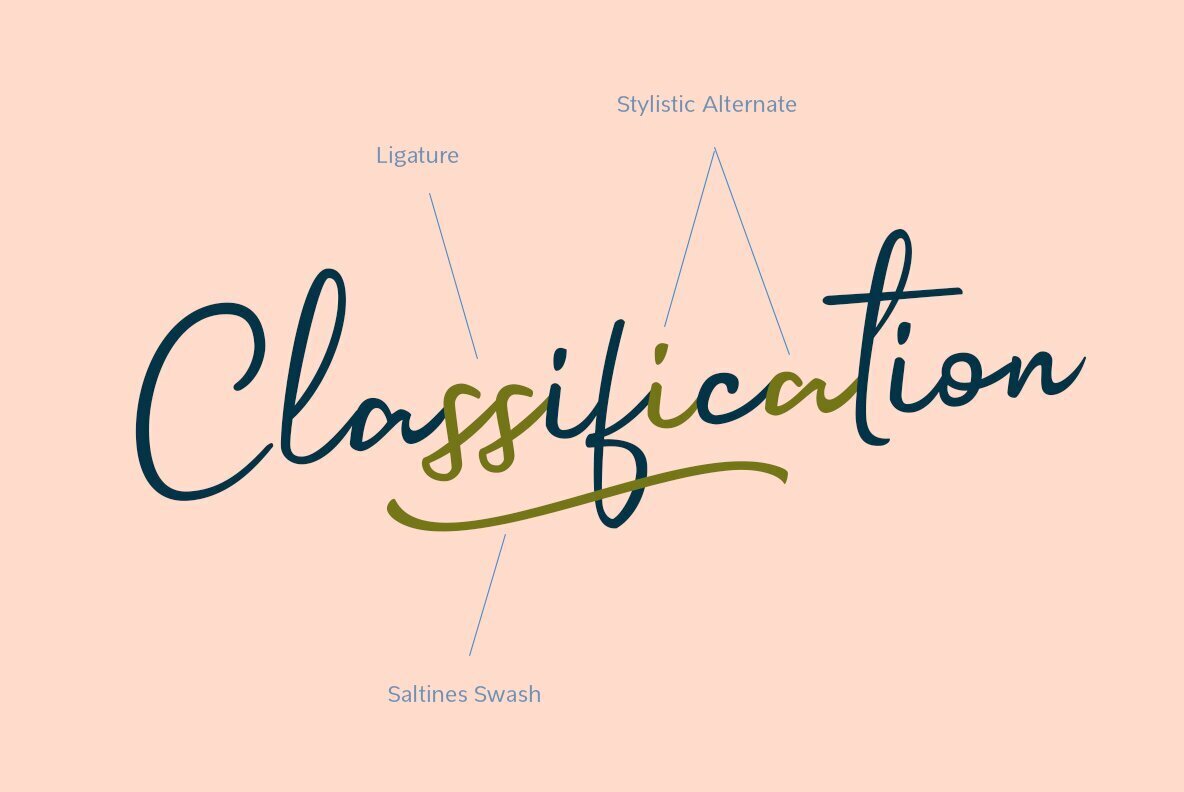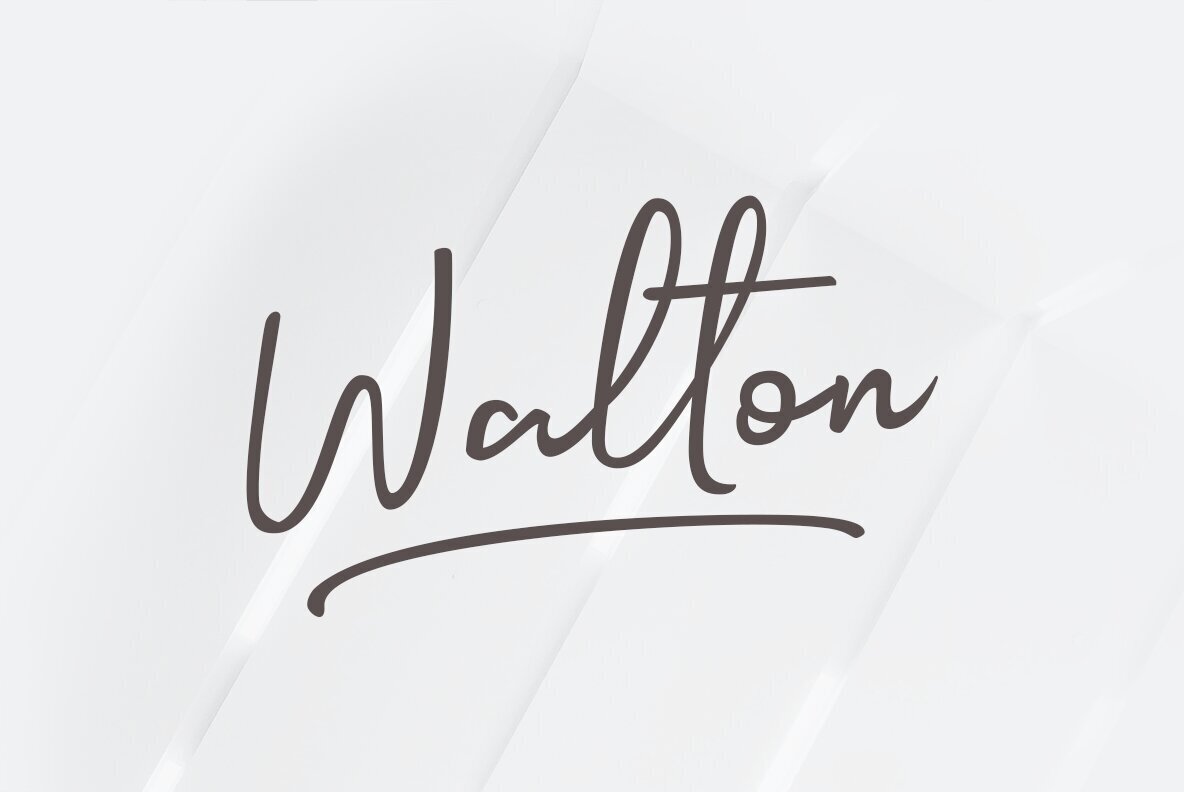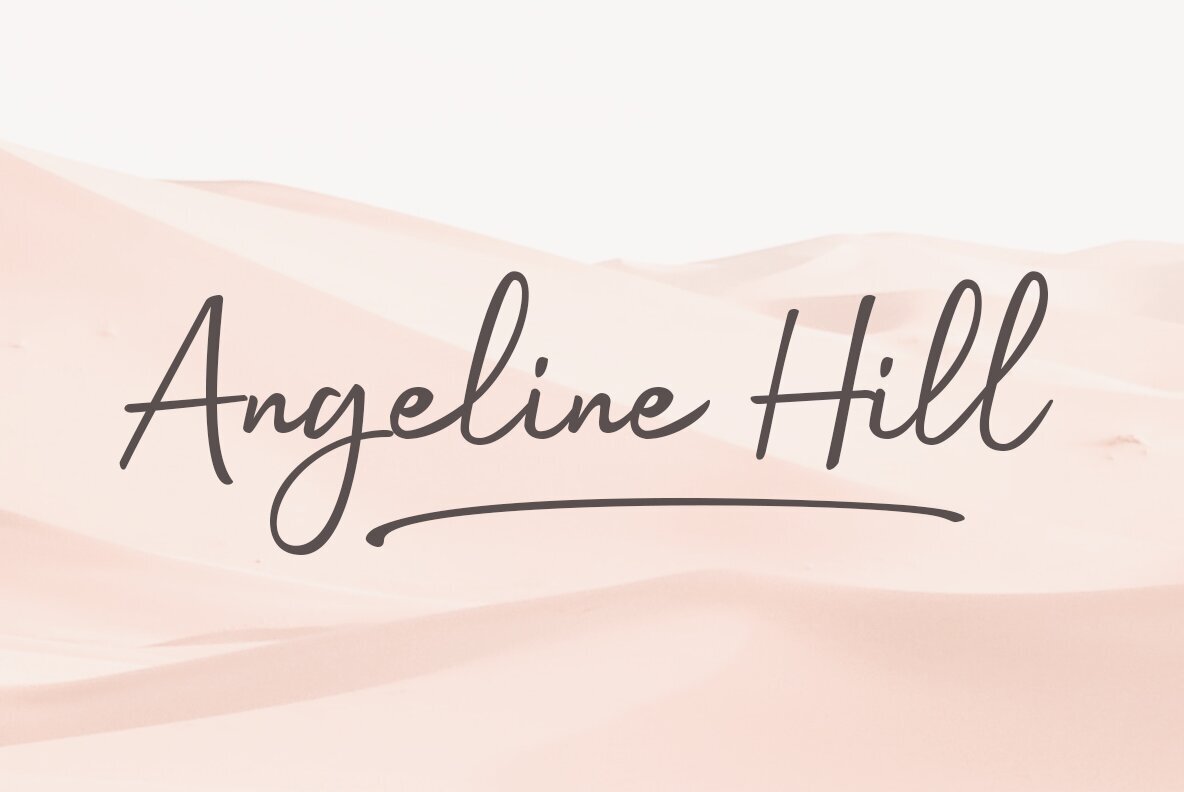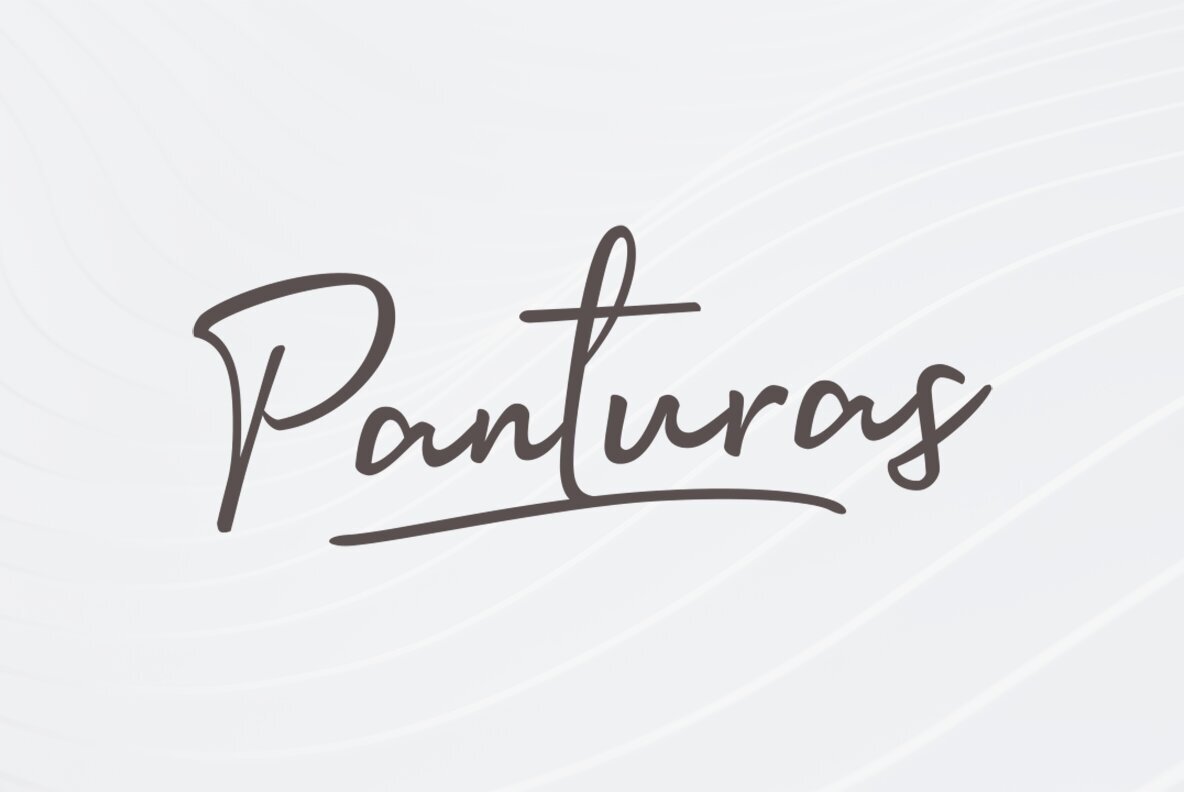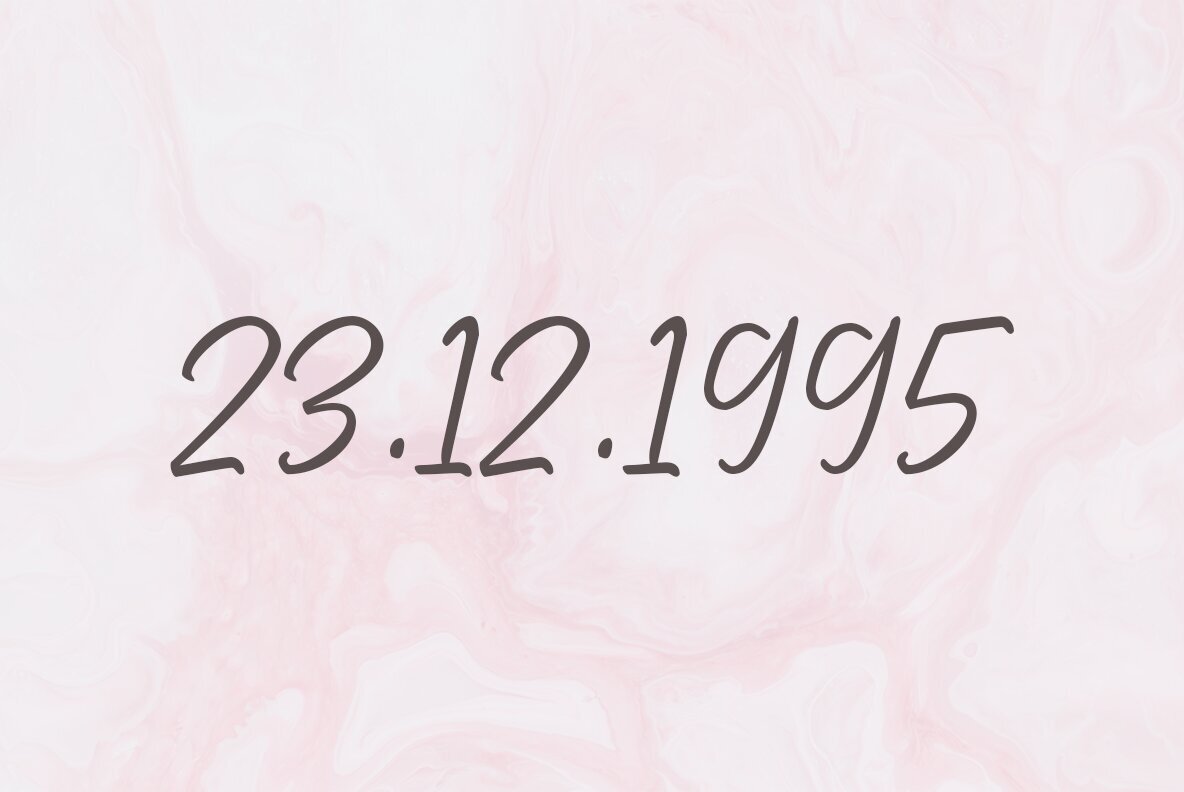
Saltines Font
Saltines is a handwritten font with a slightly wild feeling, where the thick and thin strokes of the letters are a little erratic. Saltines also comes with OpenType features such as ligatures and stylistic alternates